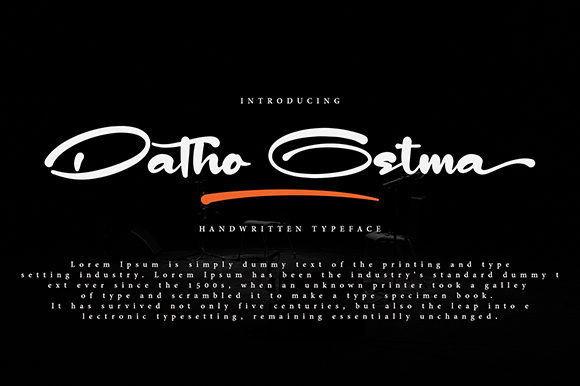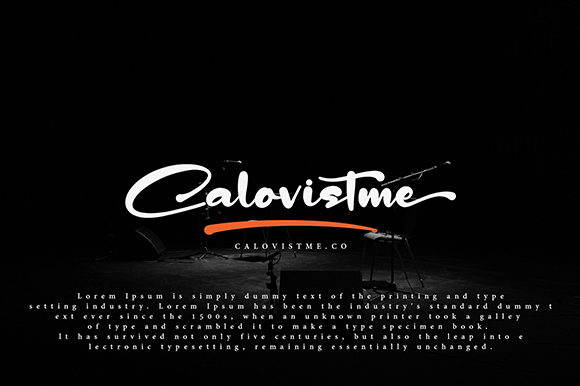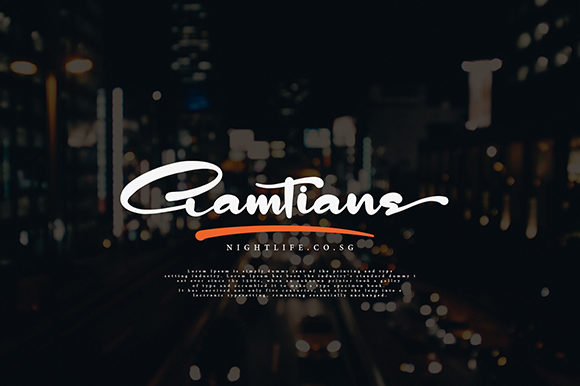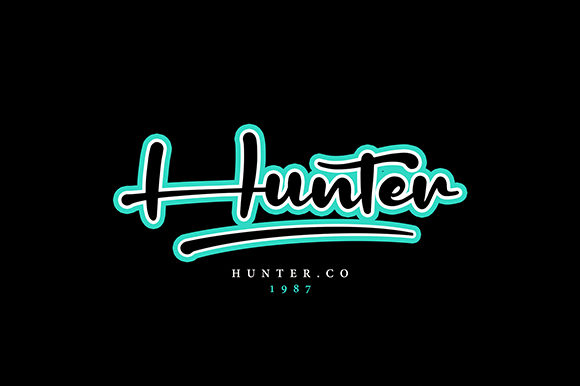
Datho Ostma Font
About Datho Ostma Font
Datho Ostma is a unique handwritten font with a simple, yet elegant feel. It will add an authentic touch to any design idea!